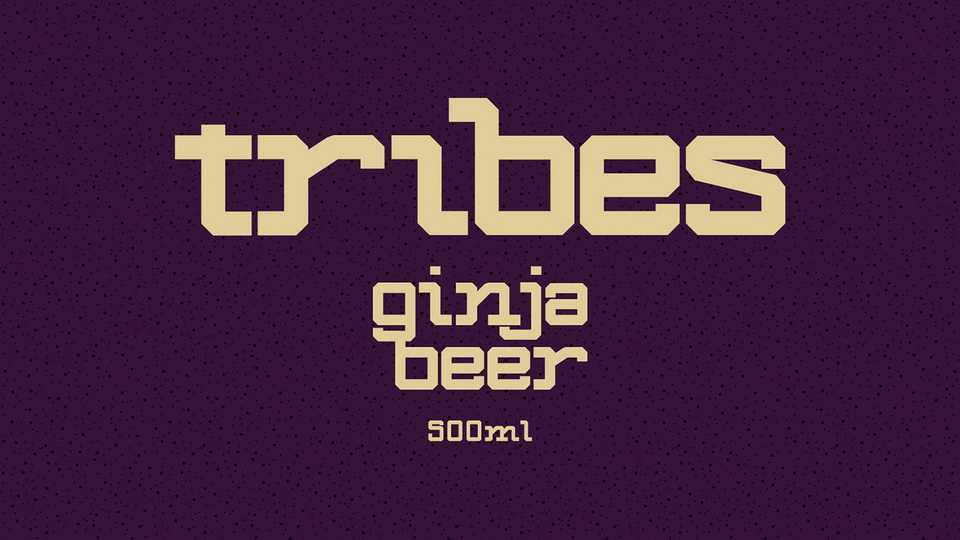
Download Tribes font, a bold slab serif typeface created for the ginger beer design project. It’s inspired by a mask style of Ancient tribalism masks.
Designer: Tapiwanashe Sebastian Garikayi